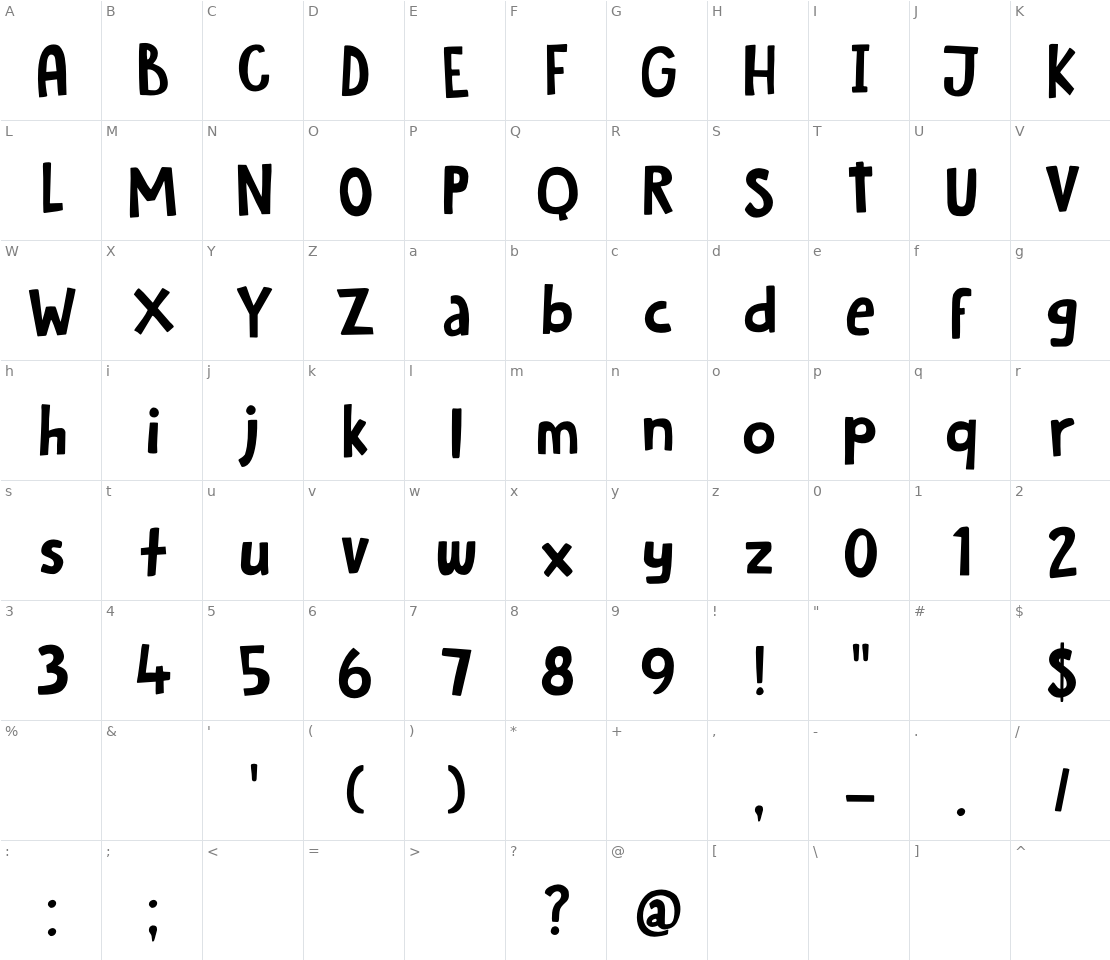
DK Hobgoblin
DK Hobgoblin is a bold, rounded handwritten face from Hanoded with a loose, bouncy quality that feels like lettering from an indie comic strip. The strokes are thick and casual, giving each character a playful, slightly mischievous personality that holds up well at headline sizes. A good pick for children's books, comics, posters, or packaging where you want something quirky and hand-done without losing legibility.